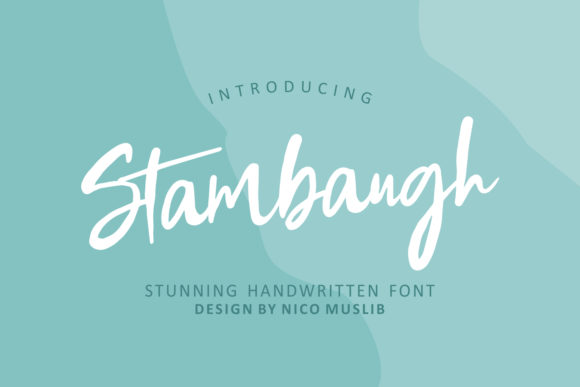
Unleash the elegance of handwritten artistry with Stambaugh, a captivating script font that will transform your designs into timeless masterpieces. This enchanting typeface, meticulously crafted by the talented Nico Muslib, seamlessly blends the charm of classic calligraphy with a modern, refreshing touch. Prepare to be mesmerized as Stambaugh elevates your wedding signs, invitations, branding, and any creative endeavor you embark upon.
Imagine the beauty of your wedding invitations adorned with Stambaugh's graceful strokes, evoking a sense of romance and sophistication that will leave your guests in awe. Its carefully designed curves and flourishes add a personal touch, making each invitation a unique work of art. As your loved ones hold these exquisite creations in their hands, they will feel the love and care you poured into every detail.
Step into a world of endless possibilities as Stambaugh enhances your branding efforts. Create logos that exude elegance and charm, leaving a lasting impression on your customers. With Stambaugh, your brand identity will radiate a timeless appeal that sets you apart from the crowd. Its versatility extends to social media graphics, packaging design, and website headers, ensuring a cohesive and captivating online presence.
Experience the joy of creating heartfelt and meaningful messages with Stambaugh. Design greeting cards that convey warmth and sincerity, expressing your love and appreciation to those who matter most. Its flowing lines and delicate details add a touch of intimacy, making your words come alive on the page. Whether it's a birthday wish, a thank-you note, or a simple hello, Stambaugh transforms your messages into cherished keepsakes.